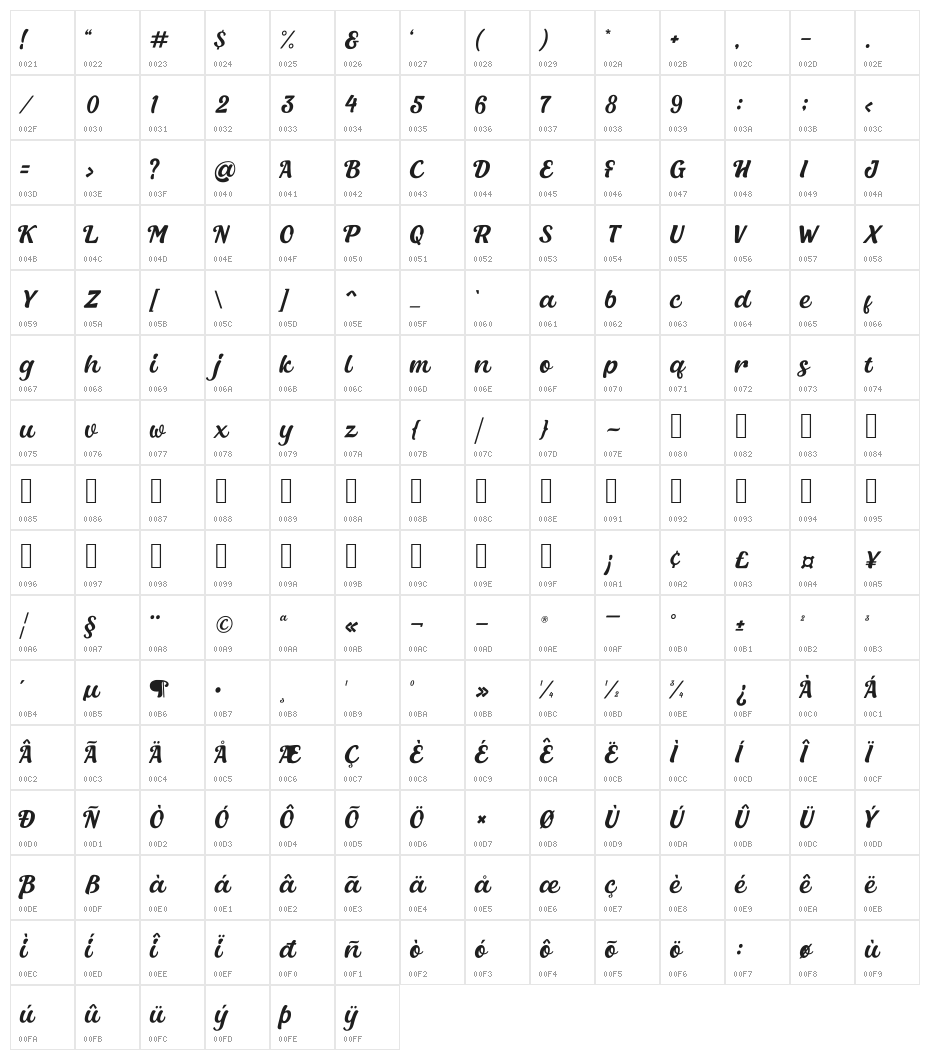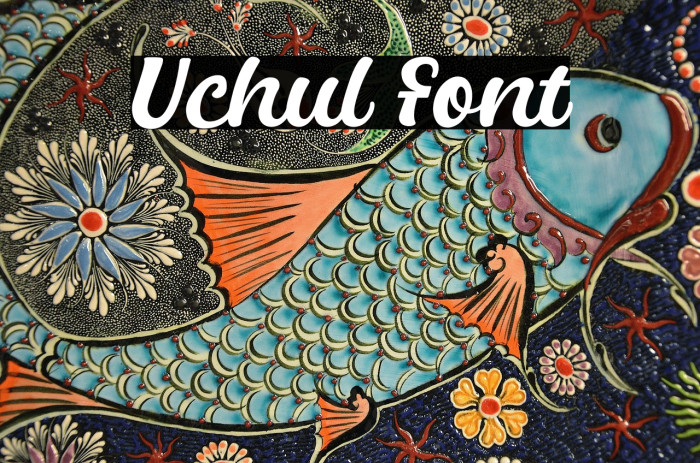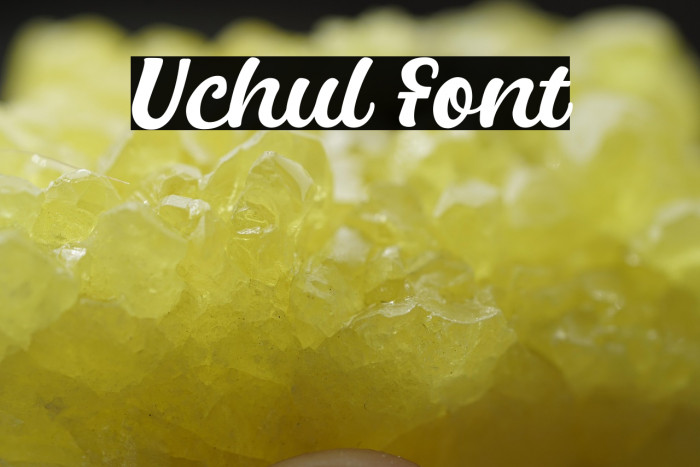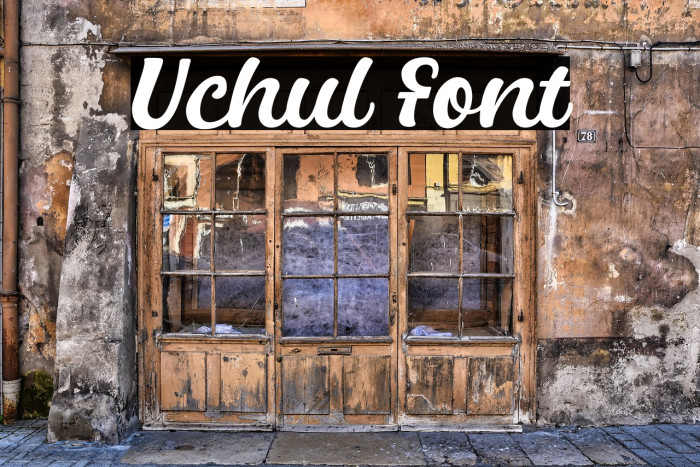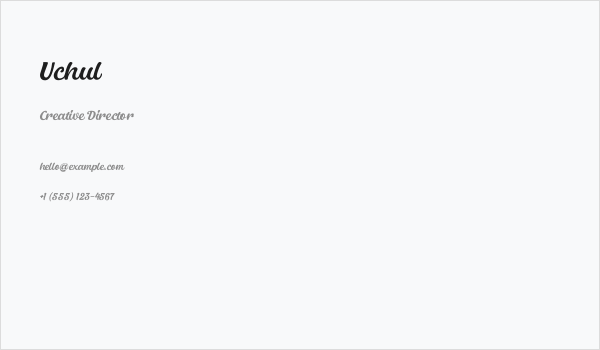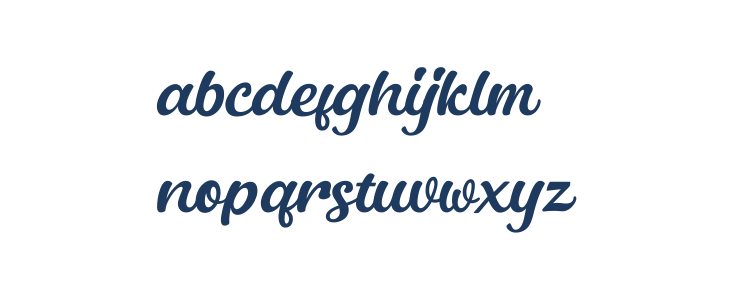
Uchul Font
Uchul Description
This font features a bold and flowing script style, characterized by its smooth, cursive letterforms that convey a sense of elegance and fluidity. The uppercase letters are slightly more upright, while the lowercase letters exhibit a gentle slant, enhancing the script's dynamic appearance. The numerals and special characters maintain the same flowing style, ensuring consistency across all glyphs. The strokes are thick, providing a strong visual impact, while the rounded edges soften the overall look, making it approachable and friendly. This font is well-suited for designs that require a touch of sophistication and charm.
| Overall Style | Elegant, Decorative |
| Proposed Projects | Ideal for wedding invitations, greeting cards, branding projects, and elegant signage. |